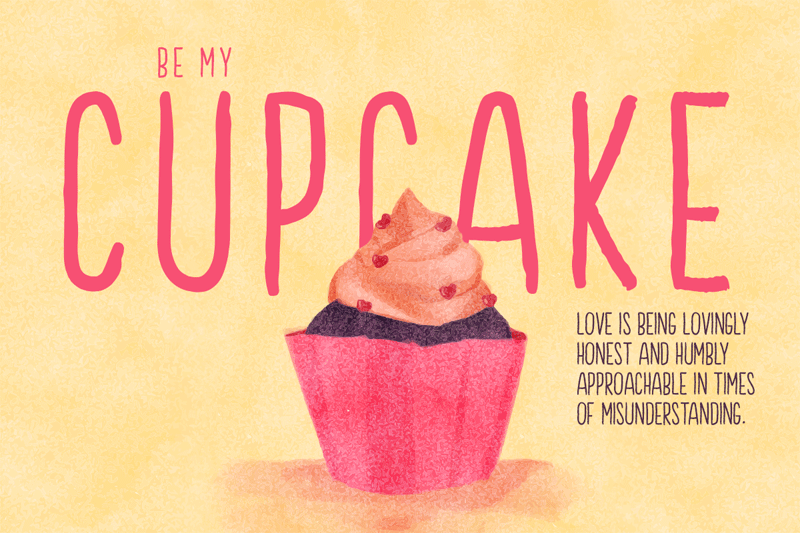
Preview and download Brook Font. Created by Factory738 in Script Handwritten styles with Free for personal use license.
Font name: | Brook |
Author: | Factory738 |
Introducing Brook - a new beautiful handcrafted font for your projects, comes with upper characters within the 4 weight fonts ( Bold, Regular, Light, and Thin). So beautiful on invitation like greeting cards, branding materials, business cards, quotes, posters, and more. Download full version and commercial license: https://crmrkt.com/gp48gD Thanks for downloading my font, and I hope you enjoy it! Created by Factory738. |